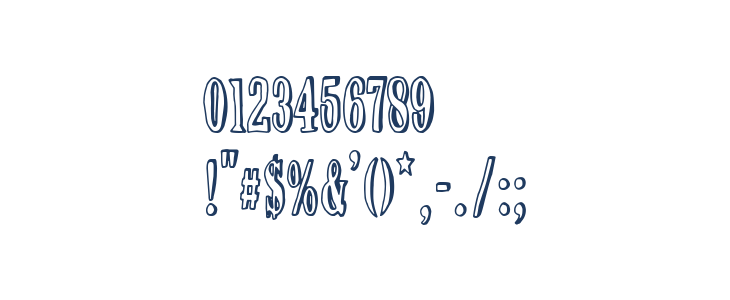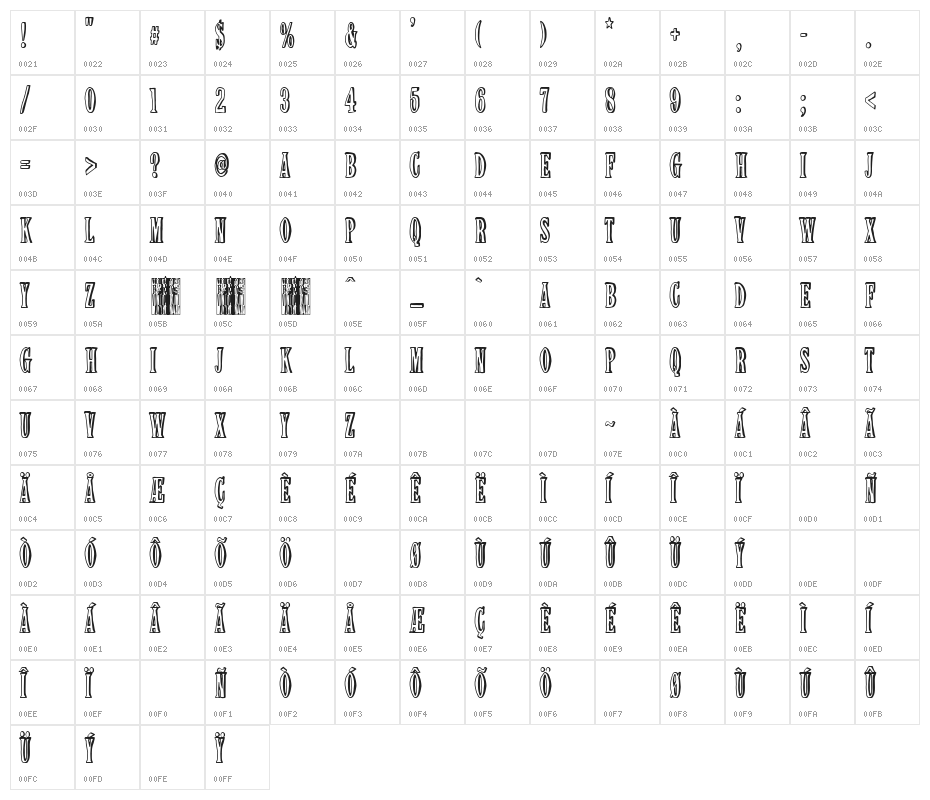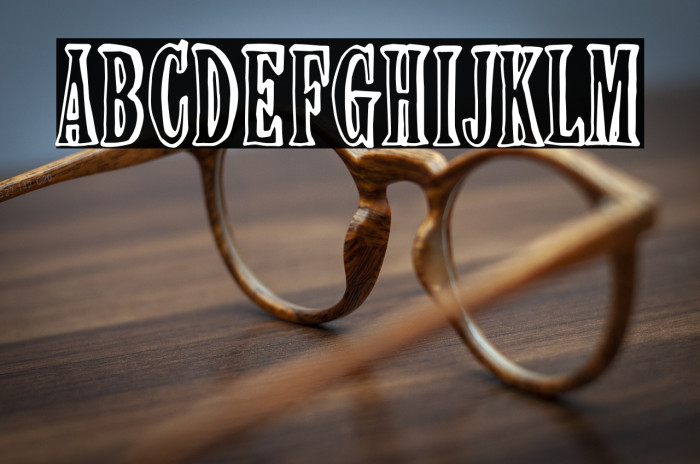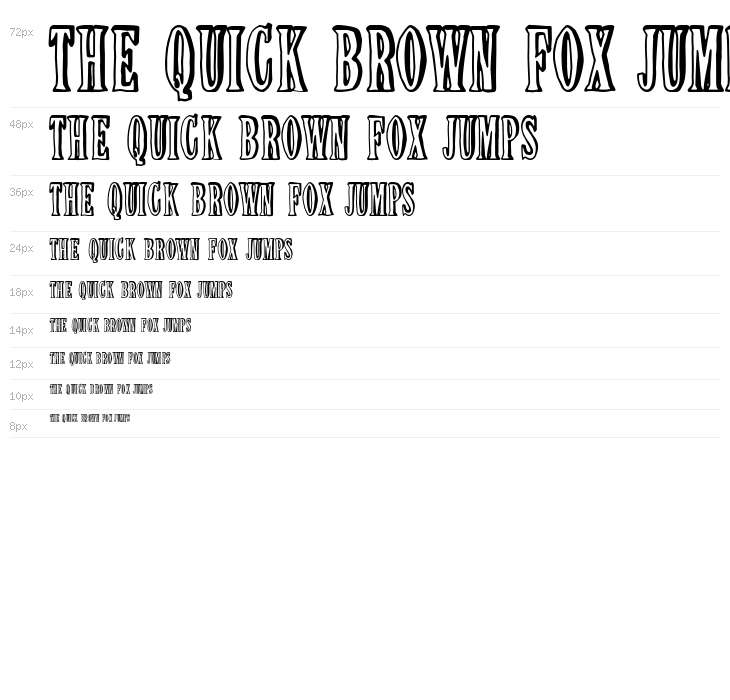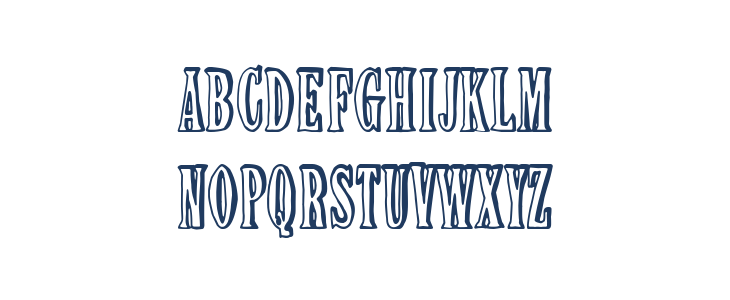
Vaginoplasty club Font
Vaginoplasty club Description
This font features a bold, decorative style with a hand-drawn appearance. The characters are outlined with a thick black border, giving them a striking and impactful look. The interior of each letter is filled with a white space, creating a high contrast between the outline and the inner area. The font has a playful and artistic vibe, making it suitable for creative and informal projects. The uppercase letters are tall and slightly condensed, while the numerals and special characters maintain the same bold and outlined style. This font is ideal for projects that require a strong visual presence and a touch of whimsy.